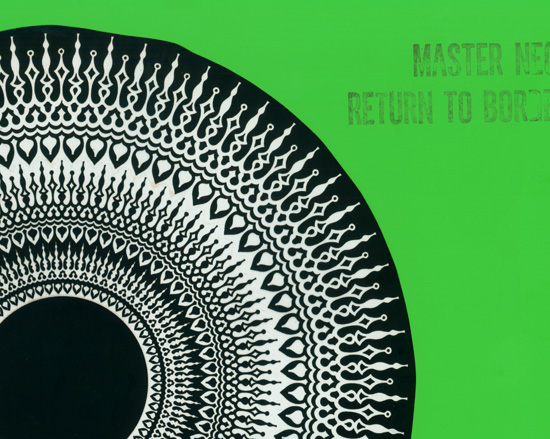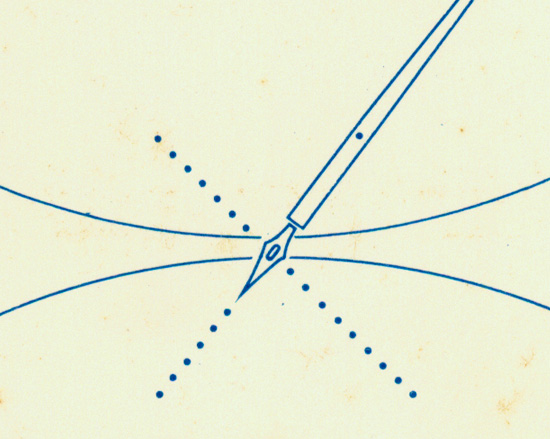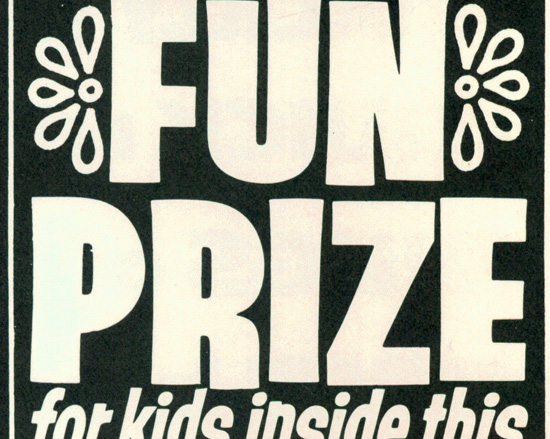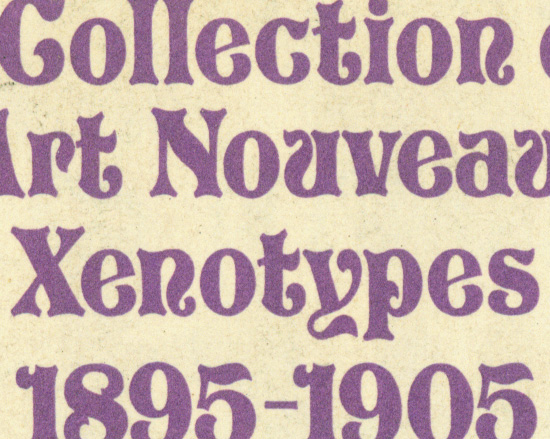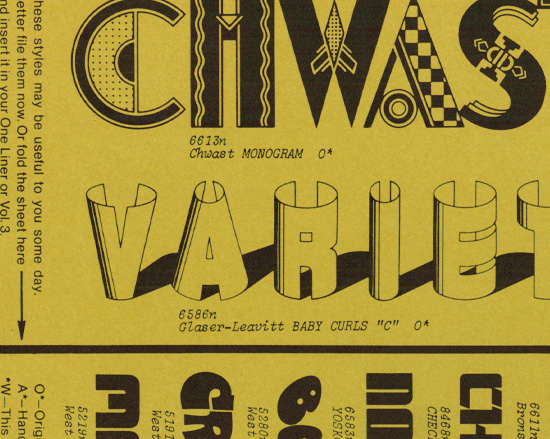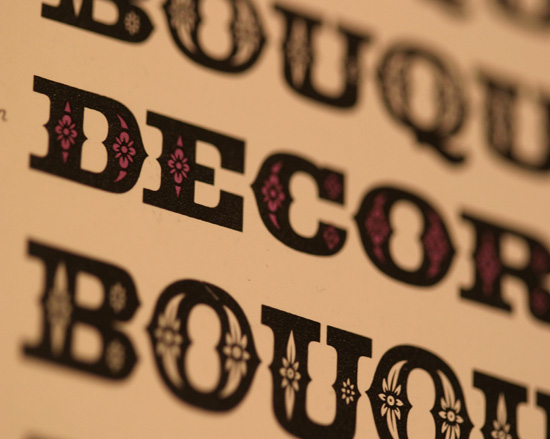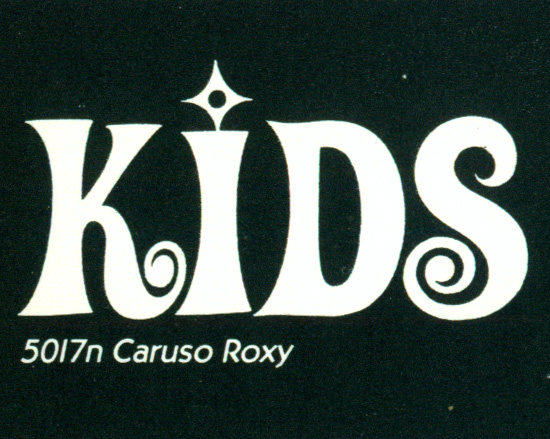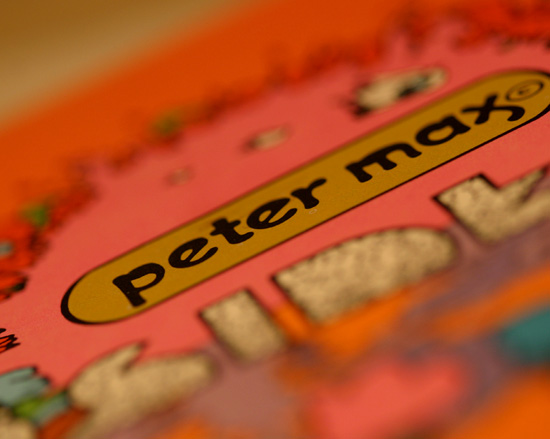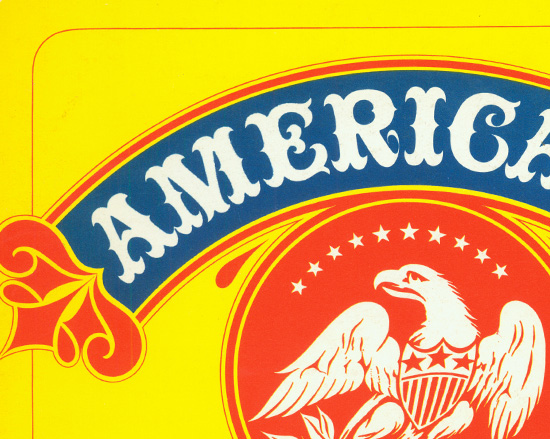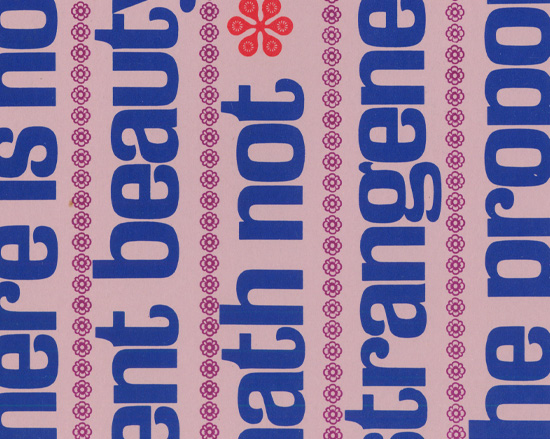
Sixty years worth of brilliantly-designed marketing collateral combined with work submitted from A-list designers and pop artists formed a lithophotographic legacy that would keep any modern-day reference blogger’s intern busy for years. While each combination of alphabet styles, colors and shapes may evoke a certain time period in PLINC’s illustrious history, these visual lessons are relevant in any era.